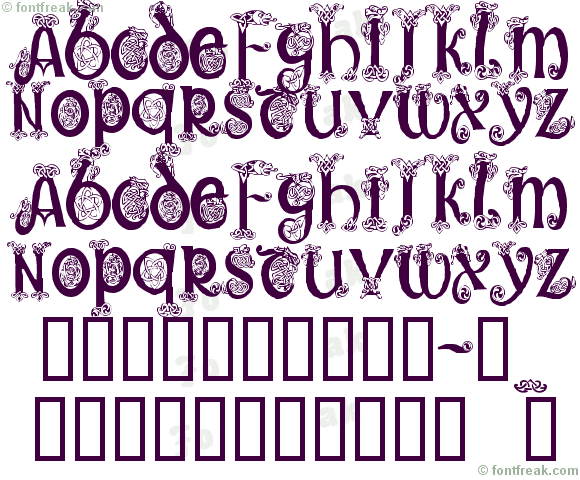
Trueheart Condensed
Trueheart
About Trueheart
Trueheart is a captivating decorative font designed by Iconian Fonts, classified under the display category. This unique typeface showcases a blend of whimsical and ornate elements, making it a standout choice for various creative projects. The font features intricate strokes with a consistent weight, which adds a sense of elegance while maintaining readability. The character spacing is thoughtfully designed to enhance both aesthetic appeal and legibility, allowing the decorative elements to shine without overwhelming the viewer.
Trueheart is particularly suited for a range of specific use cases. It is an excellent choice for wedding invitations, where its romantic flair can set the perfect tone for the occasion. Additionally, the font works beautifully for movie posters, lending a sense of drama and intrigue that can captivate potential viewers. Restaurant menus can also benefit from Trueheart's unique character, helping to create a memorable dining experience. Furthermore, it can be utilized in crafting personalized greeting cards, where the intricate details can convey heartfelt sentiments.
What sets the Trueheart font apart is its ability to combine artistry with functionality. Its decorative nature does not compromise readability, making it versatile for both digital and print applications. With a Trueheart font free download, users can explore their creative potential and elevate their projects with a distinctive touch that leaves a lasting impression.